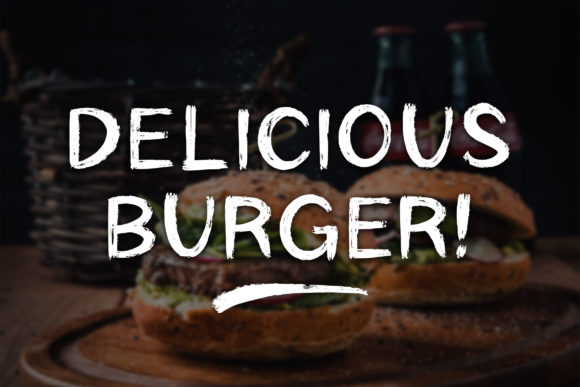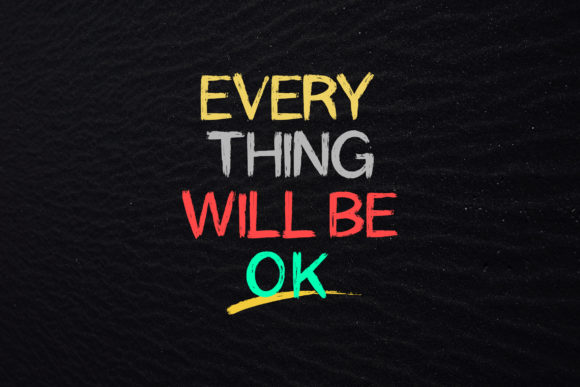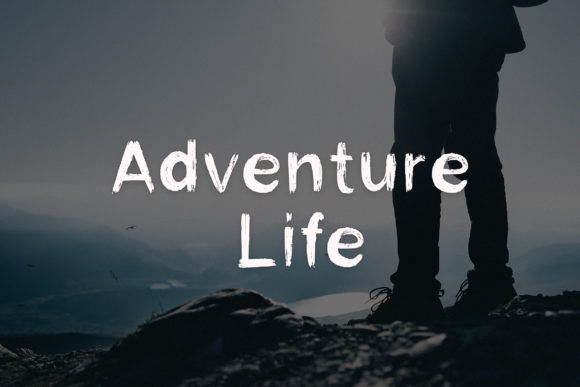
Introduction to Sanstuy Brush Font
Have you ever been working on a creative project, pouring your heart and soul into it, and then suddenly, the right font comes along and makes everything click into place? That’s exactly what happened to many designers when they discovered the Sanstuy Brush Font.
This bold and authentic display font is more than just a design resource – it’s a game-changer. With its high-quality design and transparent background, it adds a touch of sophistication to any project. Whether you’re working on a graphic design, a logo, or a social media post, the Sanstuy Brush Font is sure to elevate your work and make it stand out from the crowd.
Key Features of Sanstuy Brush Font
- Unique Hand-Drawn Design: The Sanstuy Brush Font is a high-quality, hand-drawn design resource ideal for creative projects that require a personal touch.
- Transparent Background: The font’s transparent background allows for seamless integration with various design elements, giving users more creative control.
- Perfect for Digital Art: With its unique brush strokes and organic feel, the Sanstuy Brush Font is perfect for digital art projects, illustrations, and graphics.
Honest Review: Sanstuy Brush Font
I recently had the opportunity to work with the Sanstuy Brush Font, and I must say it’s been a game-changer for my design projects. As a designer, I’m always on the lookout for high-quality design resources that can help me elevate my work, and this font definitely delivers.
Here are some things that work well with the Sanstuy Brush Font: ✨
- Unique and creative handwriting style that adds a personal touch to any project
- Works beautifully with a transparent background, allowing the design to take center stage
- High-quality design that looks great on both digital and print projects
Of course, no font is perfect, and I did encounter a few limitations: ⚠️
- May not be suitable for formal or corporate projects, due to its casual and handwritten style
- Not as versatile as some other fonts, which may limit its use in certain creative projects
Overall, I’m really impressed with the Sanstuy Brush Font. Its unique style and high-quality design make it a fantastic addition to any designer’s toolkit. Whether you’re working on a personal project or a commercial design, this font is definitely worth checking out.
Introduction to Sanstuy Brush Font
The Sanstuy Brush Font is a high-quality, free design resource ideal for creative projects requiring a unique, hand-drawn feel. Its transparent background allows for seamless integration into various design elements.
Common Use Cases for Sanstuy Brush Font
The Sanstuy Brush Font is ideal for creative projects, such as invitations, flyers, and social media graphics. Its unique, hand-drawn feel makes it perfect for adding a personal touch to your designs.
Q: Is the Sanstuy Brush Font suitable for print and digital design?
Yes, the Sanstuy Brush Font is designed to be versatile and suitable for both print and digital design. Its high-quality design and smooth lines make it perfect for use in a variety of design projects, from business cards and brochures to digital interfaces and social media graphics. As a valuable design resource, the Sanstuy Brush Font is sure to elevate your creative project to the next level.